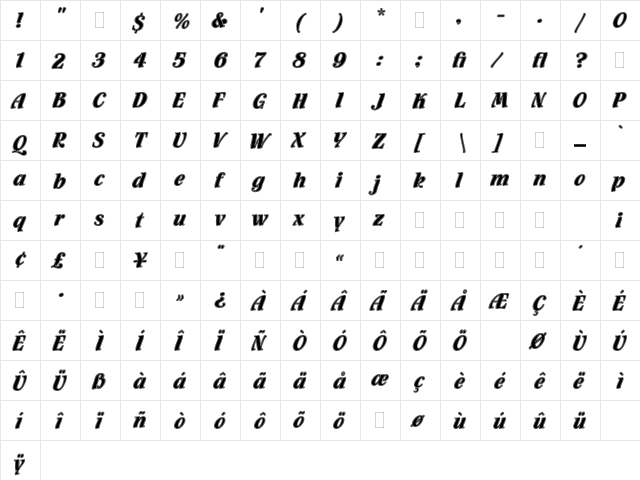
Flamenco Inline LET Plain
Design Context for Flamenco Inline LET Typeface
Flamenco Inline LET is built around its visual character rather than neutral utility — its distinctive forms are designed to make an impression at display sizes.
Font Pairing: Pair with a clean neutral sans-serif for body copy to let Flamenco Inline LET's character lead without overwhelming the composition.
Pro Tip: Use Flamenco Inline LET exclusively at display sizes — it was designed to be seen, not read at length. Let a neutral companion handle body copy.